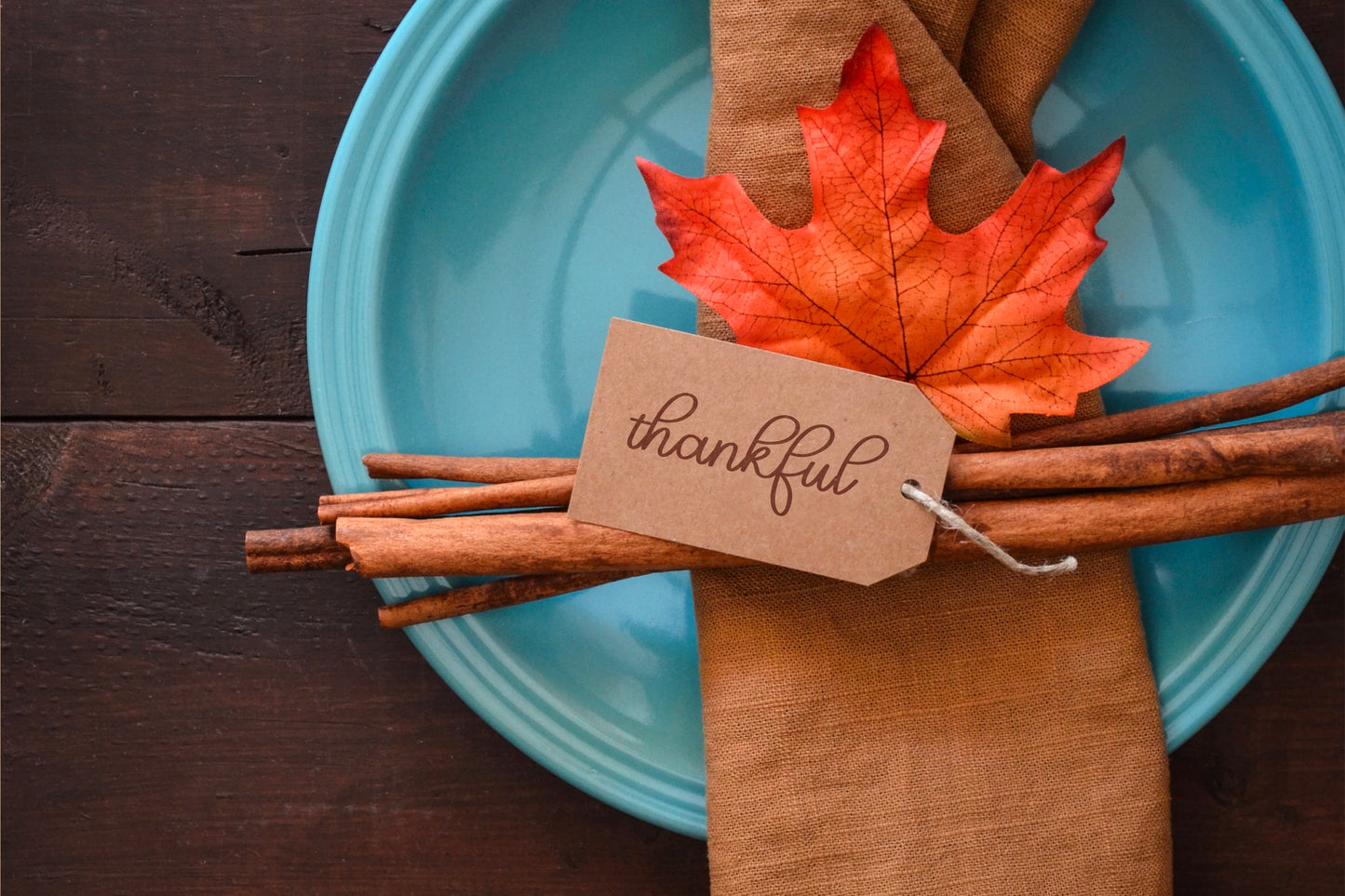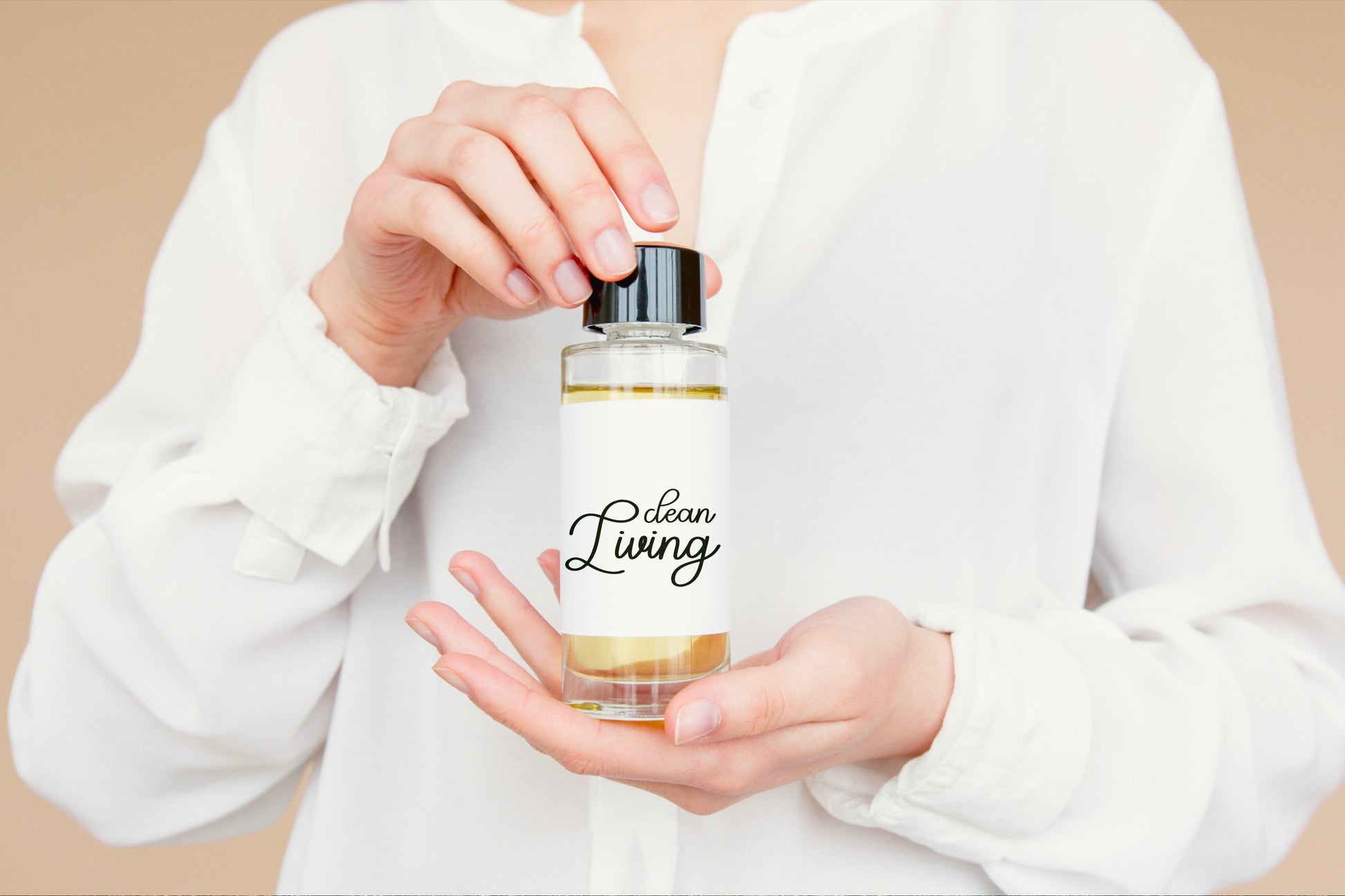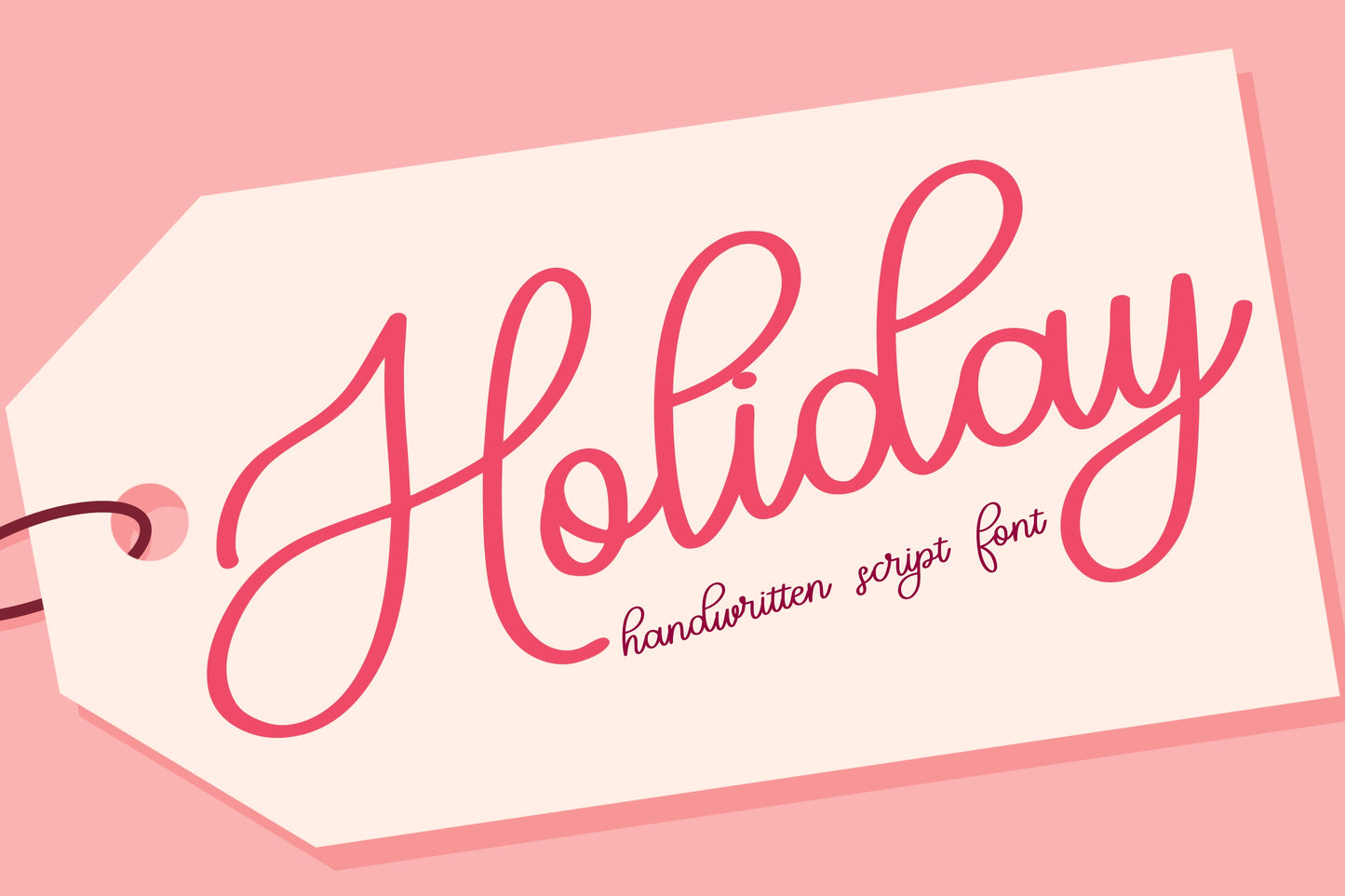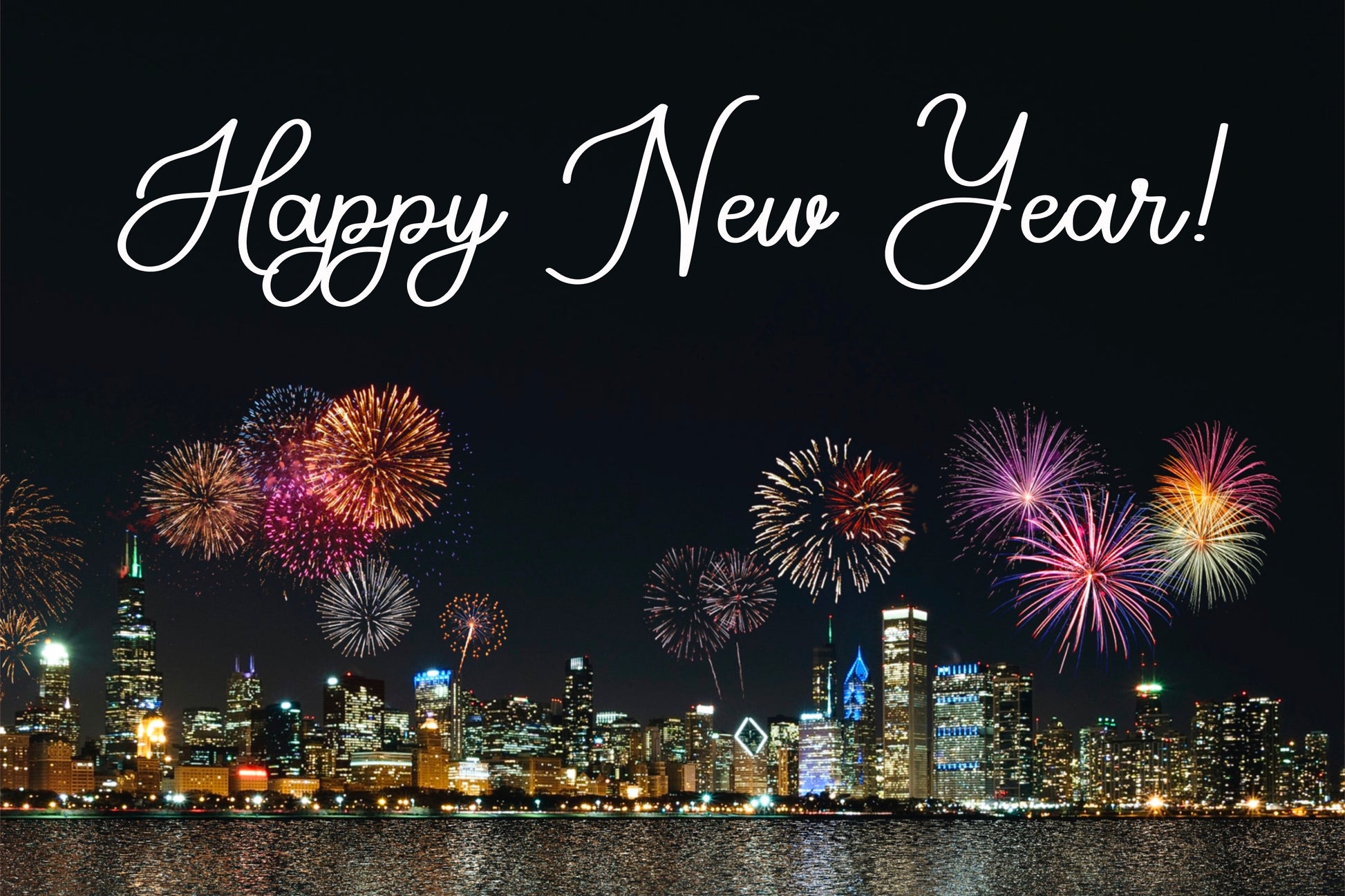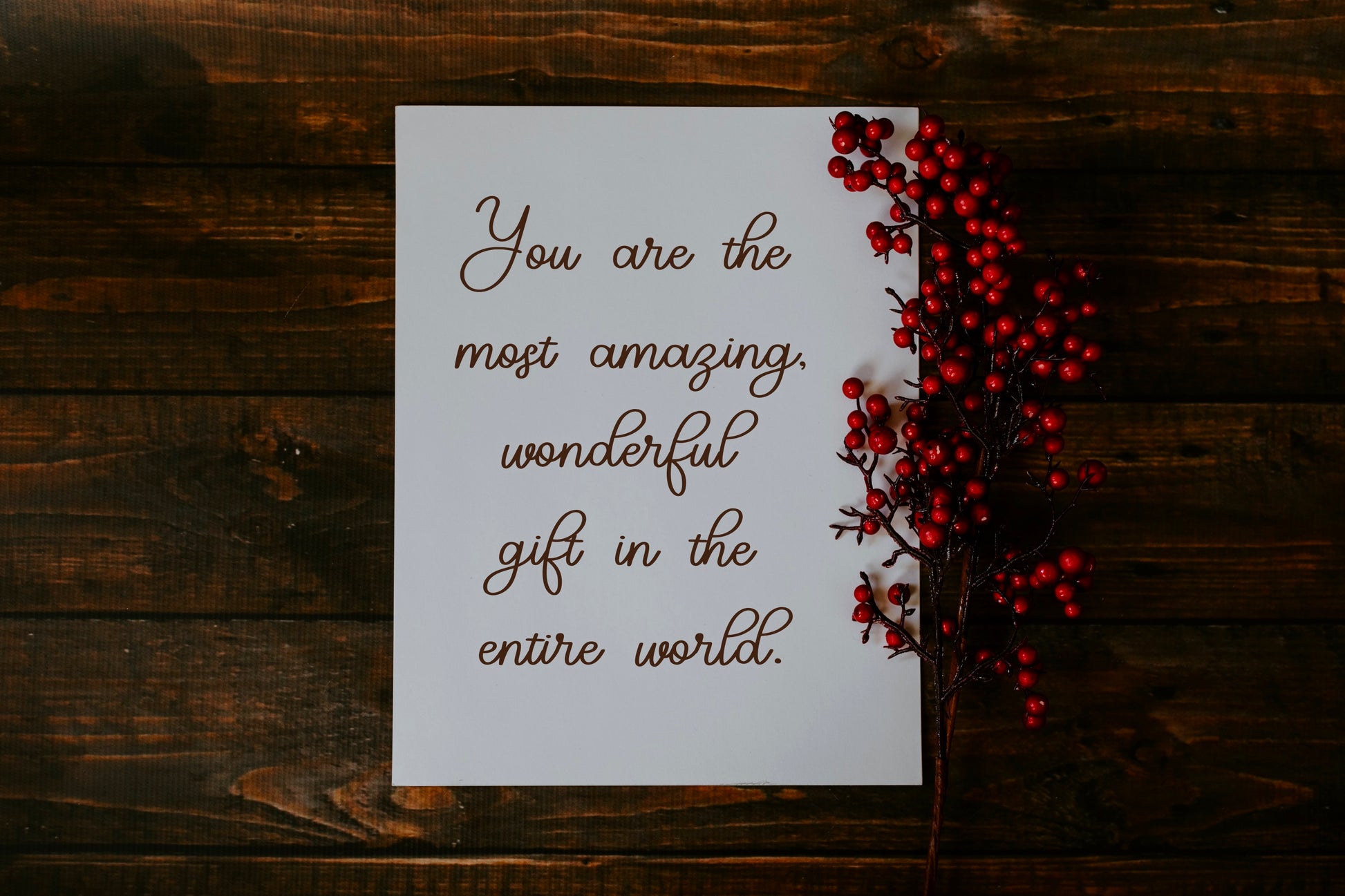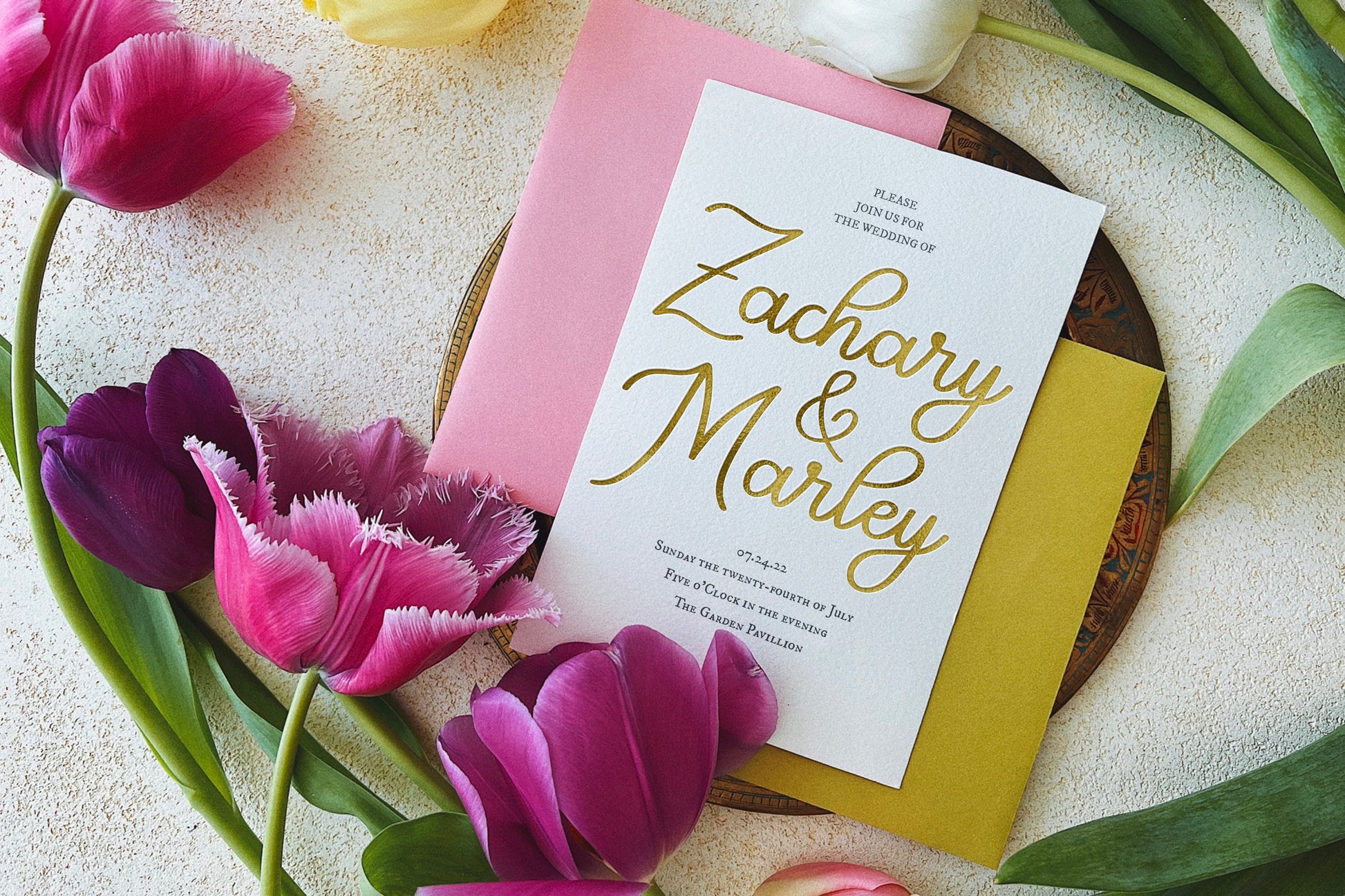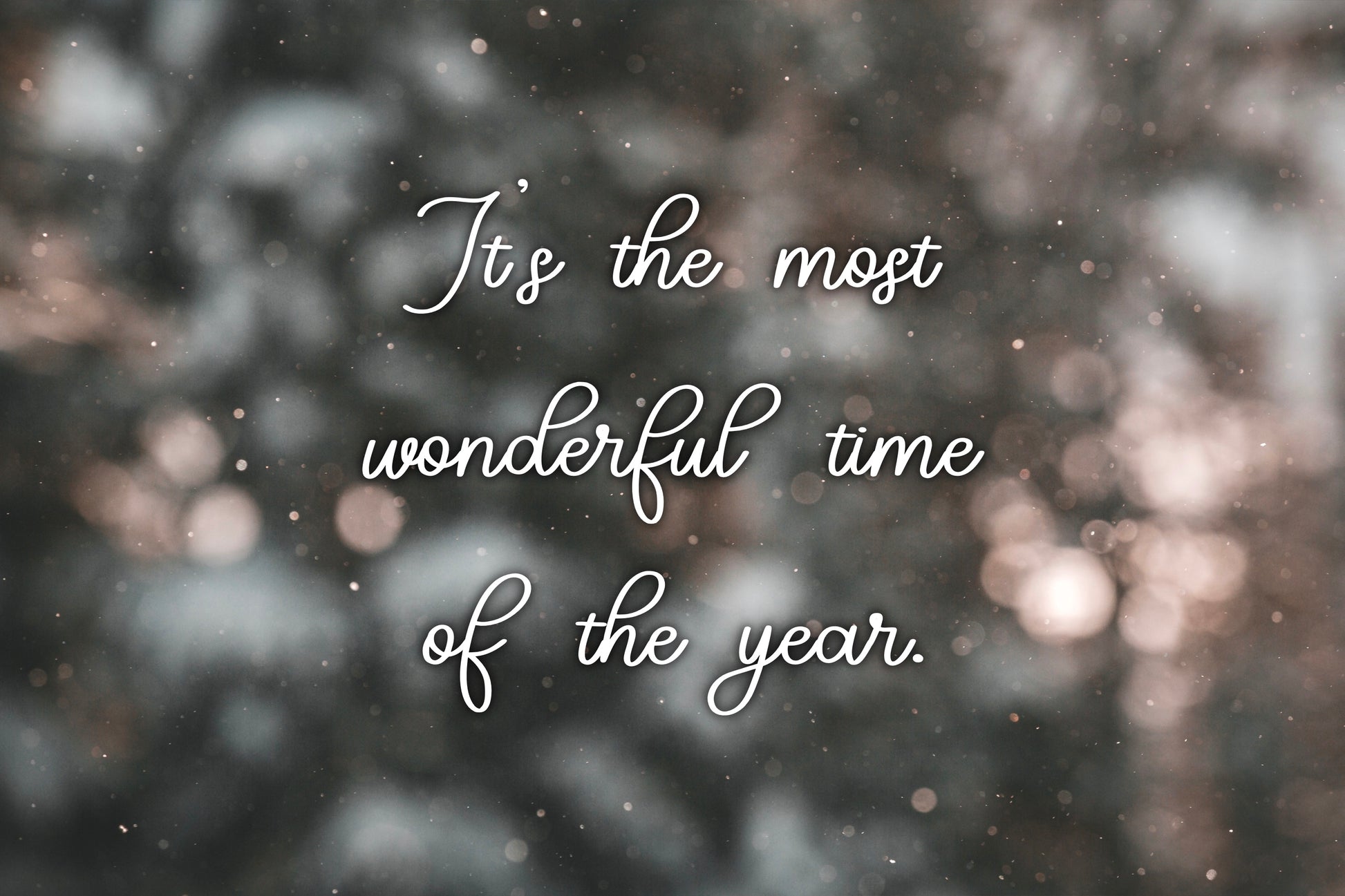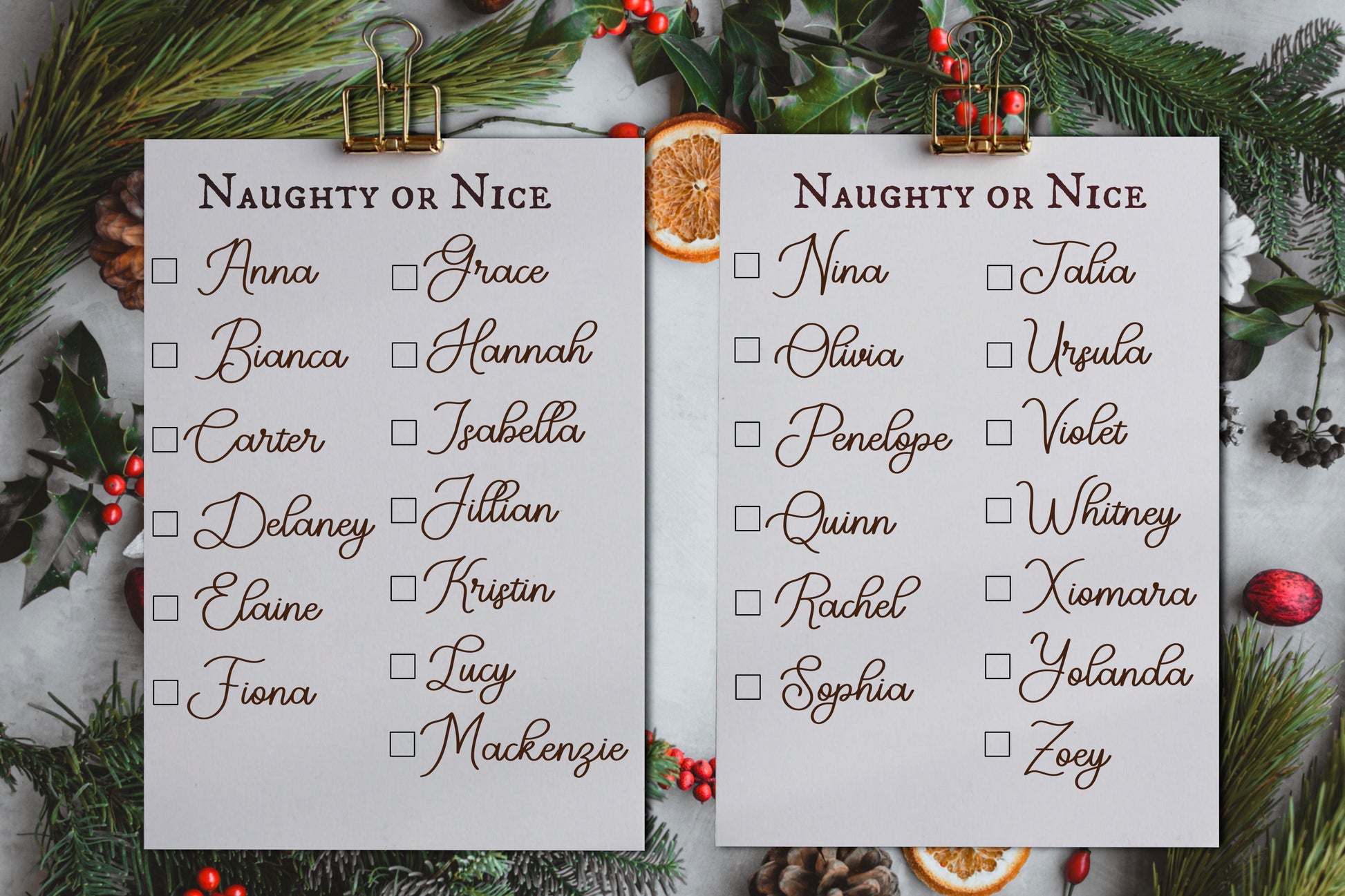
Holiday Handwritten Font
This is my Holiday handwritten/hand drawn font. This unique script font will add a fun, whimsical, handmade touch to your design! It is great for fun, elegant designs, as well as more casual, playful pieces. Perfect for invites, cards, posters, stickers, T-shirts, and more, this font can be used in endless, creative ways!